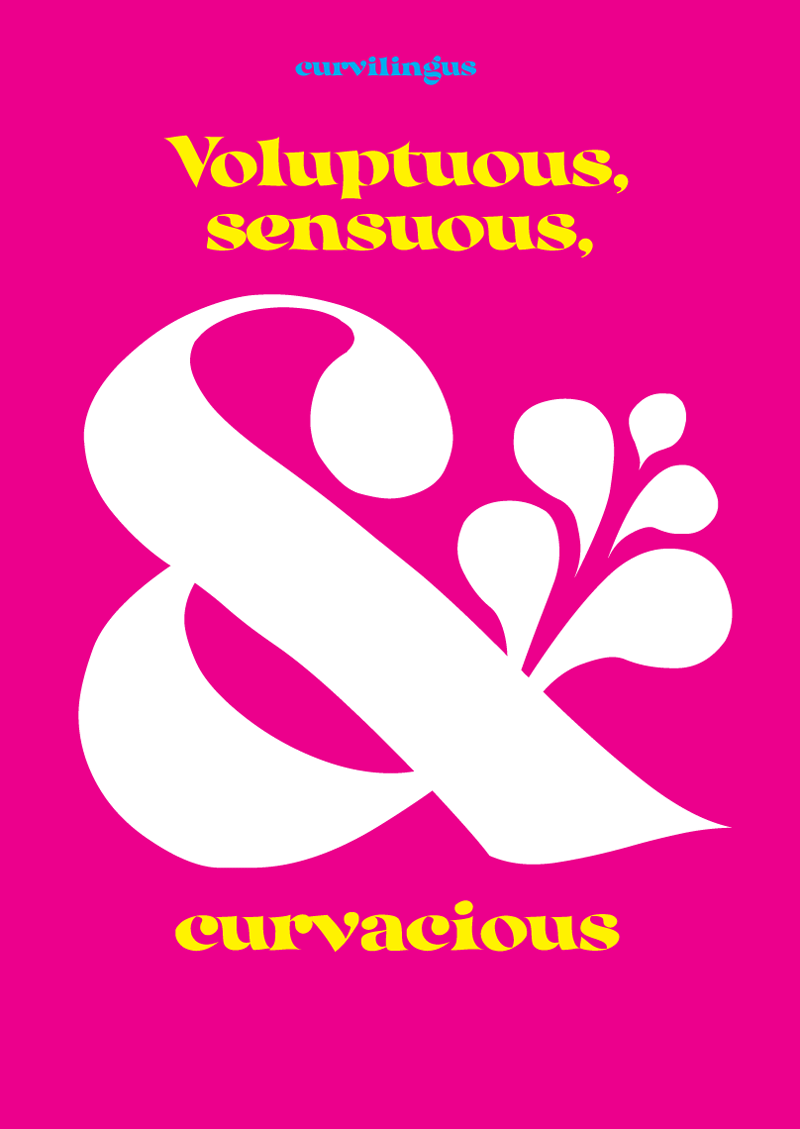
Font name: | Curvilingus |
Author: | Tup Wanders |
Note by Tup Wanders | |
A font based on the letters I usually doodle on paper. Imperfect, all over the place, but fun, curvacious and sexy! Or as one Redditor put it: 'It has love handles!' |